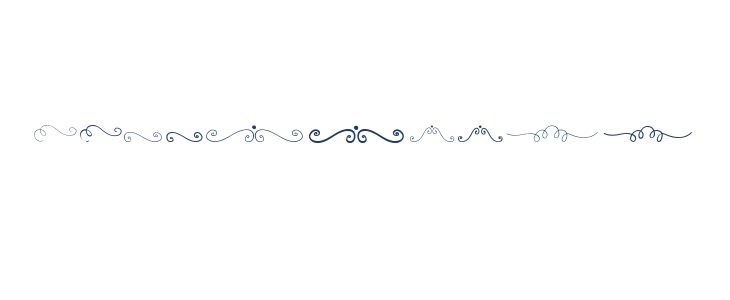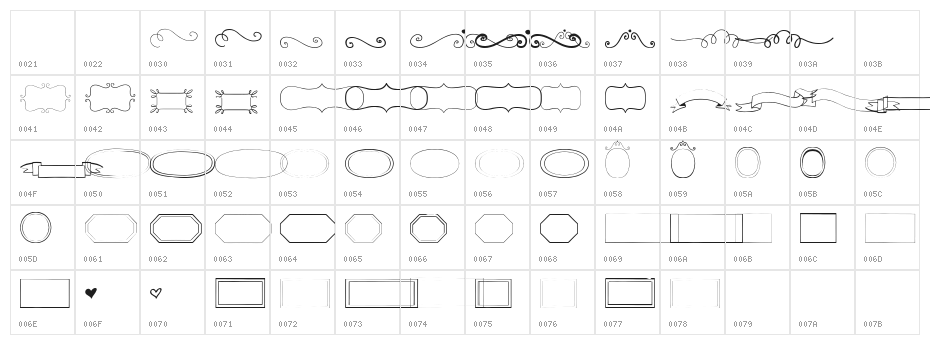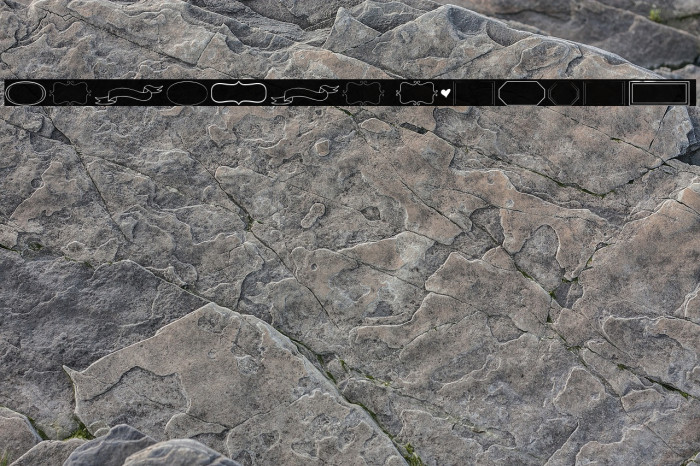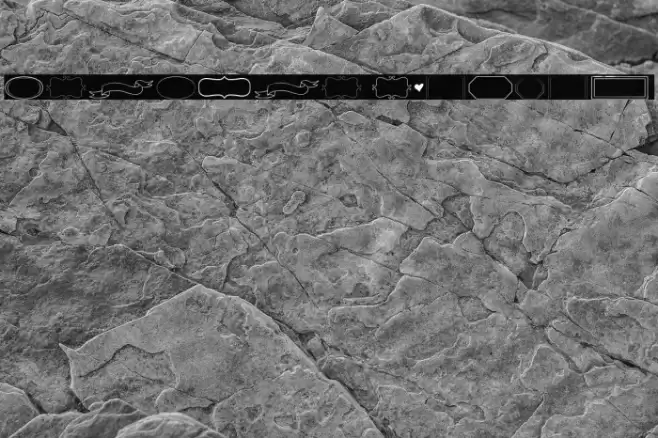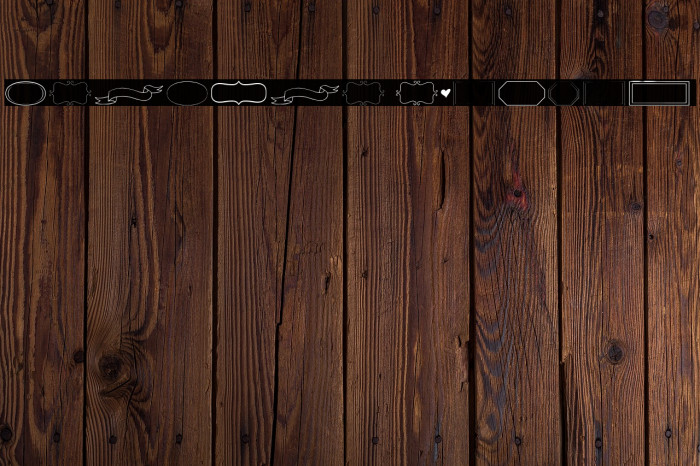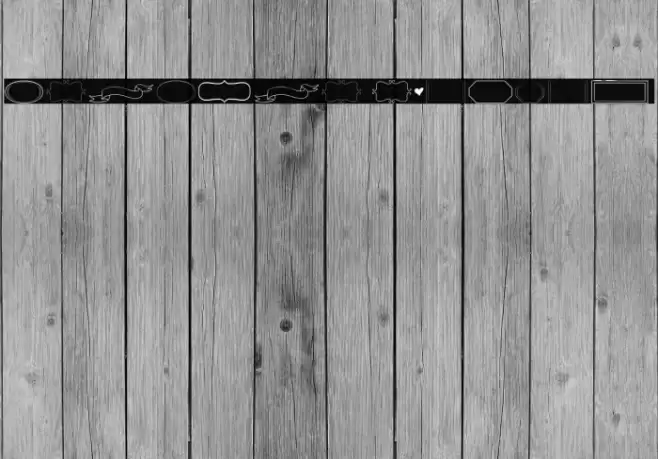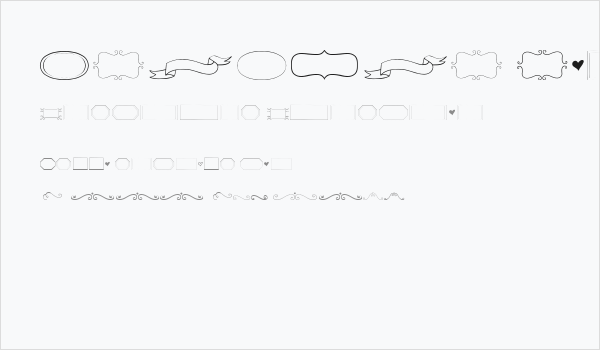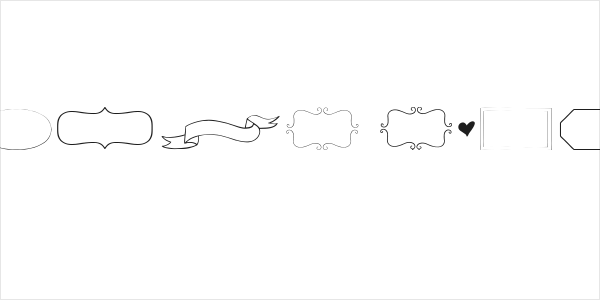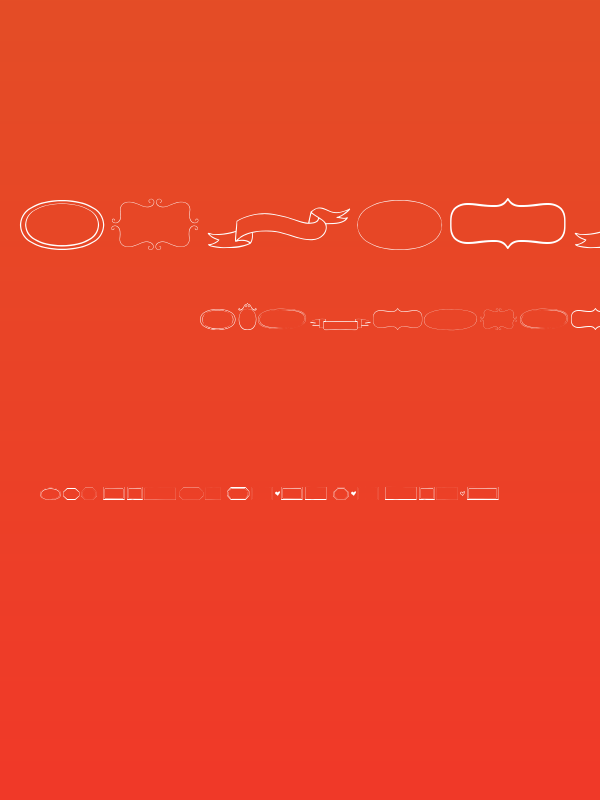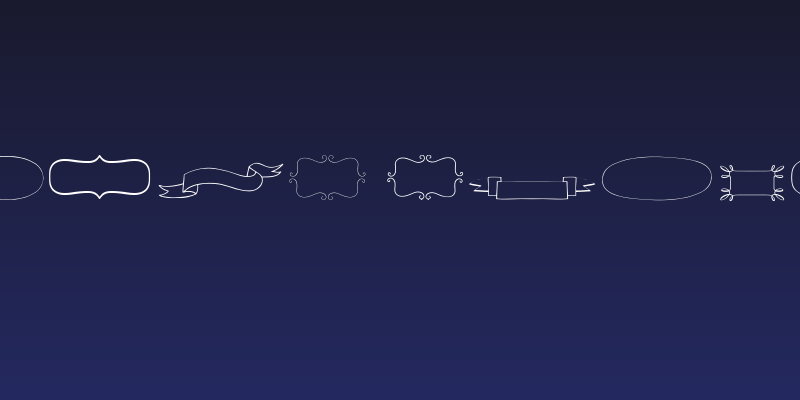
TALUHLA Borders Font
TALUHLA Borders Description
A decorative border and frame dingbat set featuring a variety of ornate, outlined shapes including scrolls, banners, ovals, rectangles, octagons, and flourishes. The elements are thin-lined, mostly open, and designed for embellishing text or creating vintage-style labels and dividers.
| Overall Style | Vintage, Decorative |
| Use Case | Borders, Frames, Decorative accents |
| Proposed Projects | Invitations, certificates, greeting cards, packaging, scrapbooking, decorative dividers, vintage labels. |